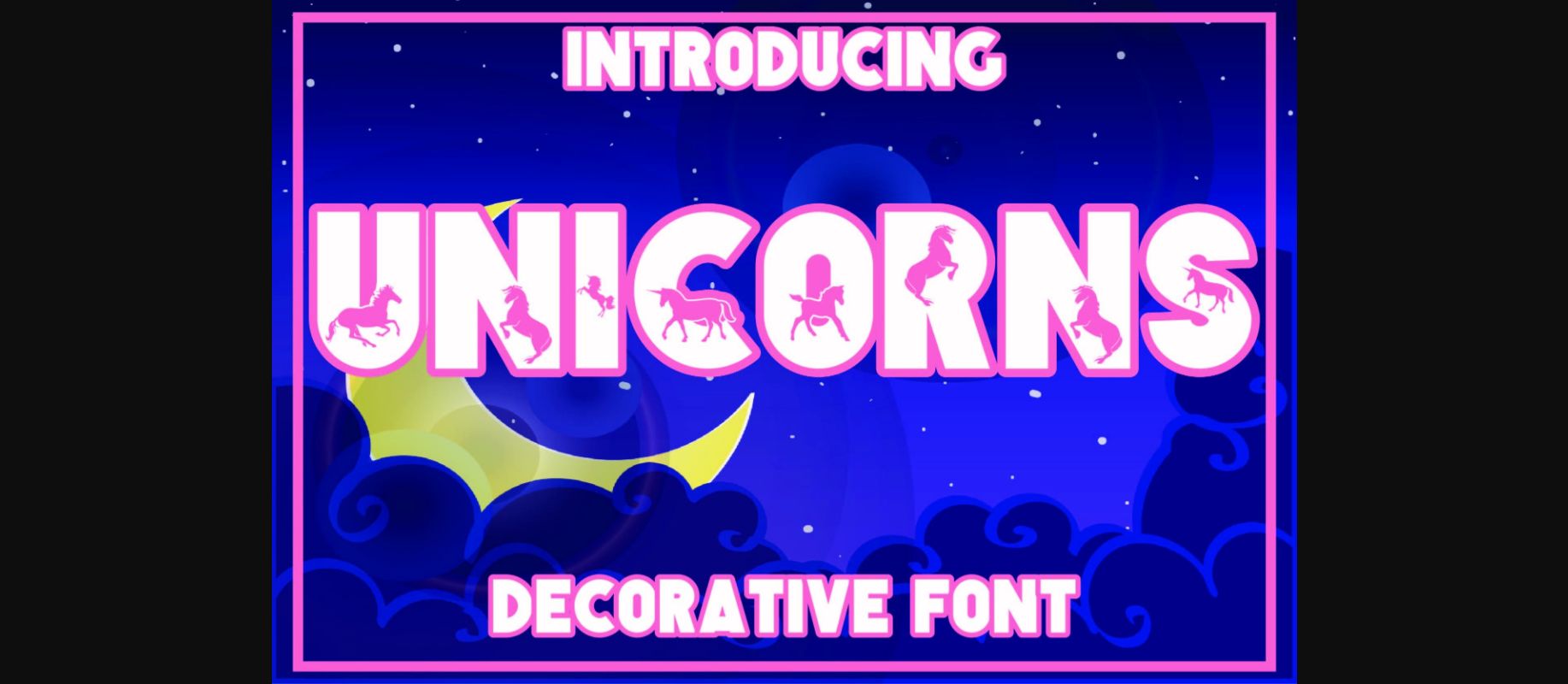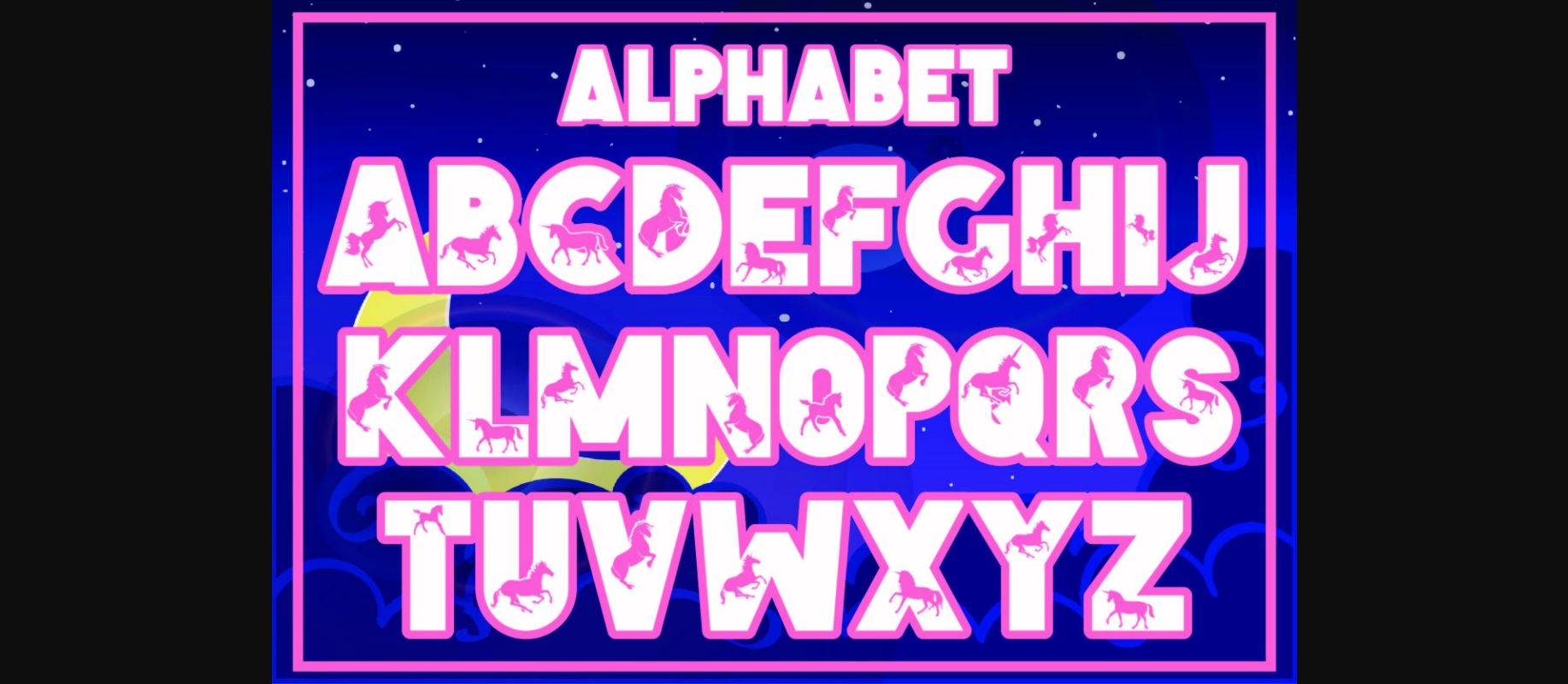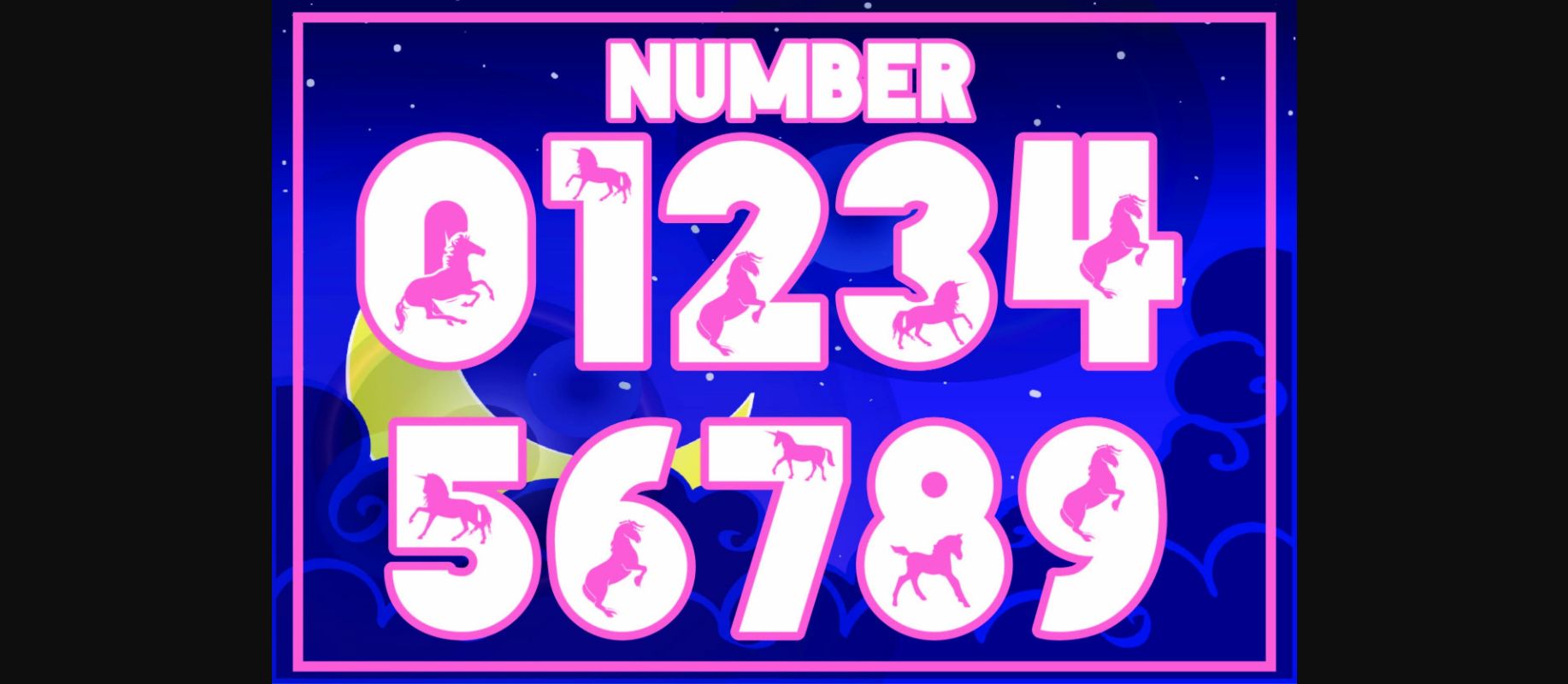
About Unicorns Font
Unicorns is a fun, jolly, and incredibly charming decorative font. It embodies playfulness and authenticity and is the perfect choice for any children’s activity or school project.